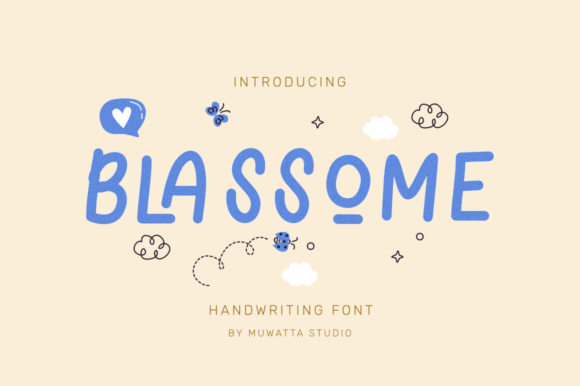
Introduction to Blassome Font
Blassome Typeface is a playful and vibrant font designed to bring joy and creativity to your projects.
Perfect for the funny, apparel, and kids markets, Blassome features bold and quirky letterforms that spark imagination and add a touch of whimsy Whether you’re creating designs for children’s clothing, fun posters, or cheerful branding, this typeface captures attention and delivers a lighthearted charm.
Key Features of Blassome Font
Blassome Font offers exceptional quality and versatility, making it a valuable addition to your design toolkit. Whether you’re creating for personal projects or commercial use, Blassome Font delivers professional results.